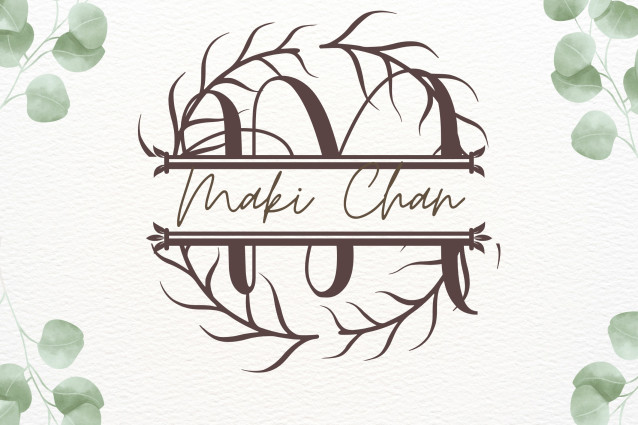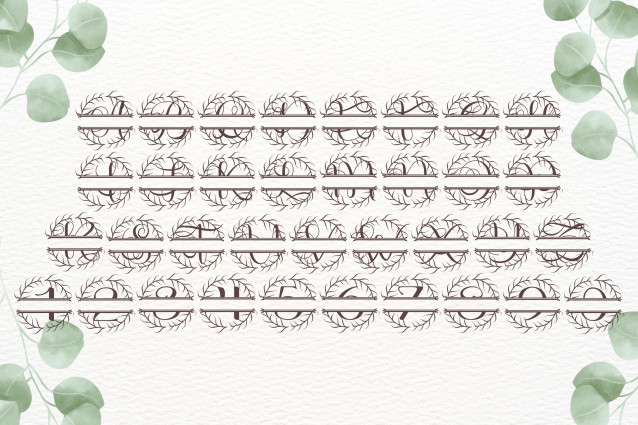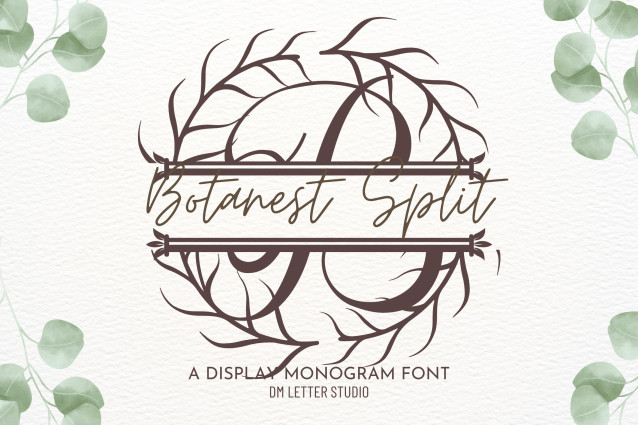
Botanest Split Monogram Font
Botanest Split Monogram Font is a sophisticated serif monogram font with leafy botanical accents and a clean split design. Each uppercase letter includes a horizontal break, giving you space to personalize with names, dates, or short words. Perfect for weddings, signage, branding, and personalized crafts, this font blends timeless serif strength with natural elegance in a customizable format.